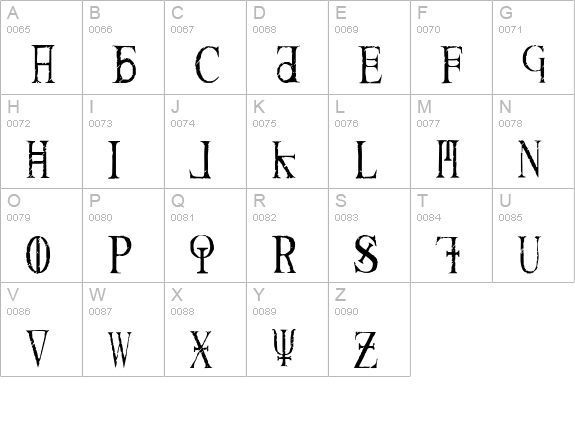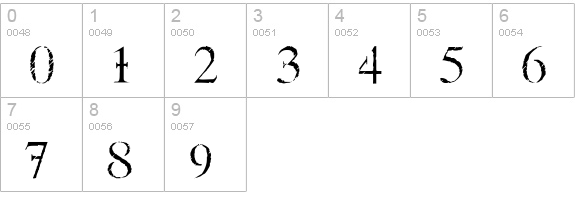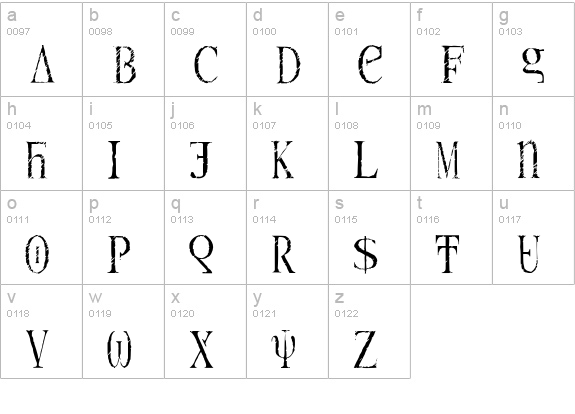
SkreechCaps Font Details
Introducing SkreechCaps, a captivating and versatile font that will make your designs come alive with its unique and edgy appeal. Crafted with precision and attention to detail, SkreechCaps is the perfect choice for those looking to add a touch of eccentricity to their projects. This font exudes a sense of powerful energy, with its sharp edges and bold lines that command attention. Whether you're designing a logo, creating eye-catching headlines, or adding a dose of personality to your social media posts, SkreechCaps will effortlessly elevate your work to new heights. SkreechCaps is not just visually striking, but also incredibly user-friendly. Its clean and legible characters ensure readability across various mediums, allowing your message to shine through without any distractions. What sets SkreechCaps apart is not only its exceptional design, but also its accessibility. We believe that great fonts should be freely available to all, and that's why SkreechCaps can be easily downloaded at FontsMarket.com, completely free of charge. Say goodbye to expensive font licenses and embrace the freedom to express yourself creatively. So, whether you're a professional graphic designer, a passionate hobbyist, or simply someone who appreciates the power of a well-crafted font, SkreechCaps is here to inspire and empower you. Download this remarkable font today and unleash your creativity like never before.